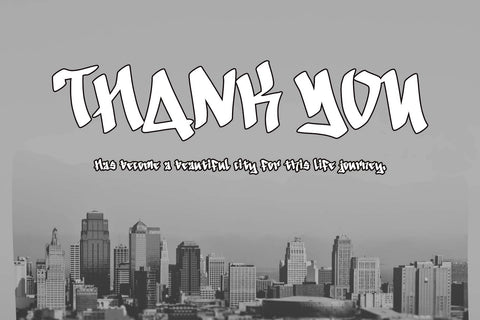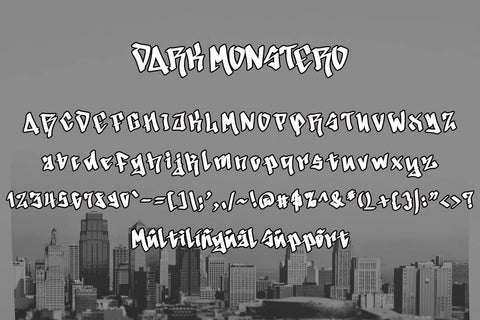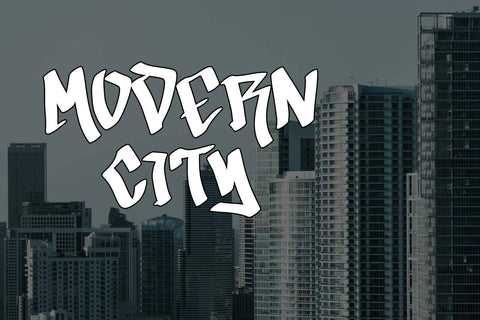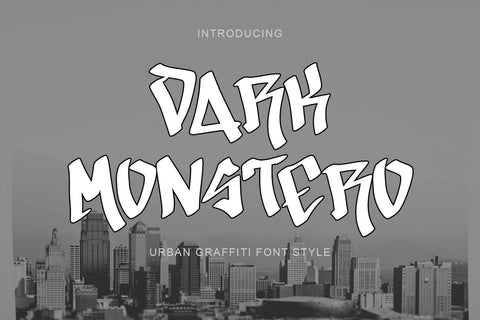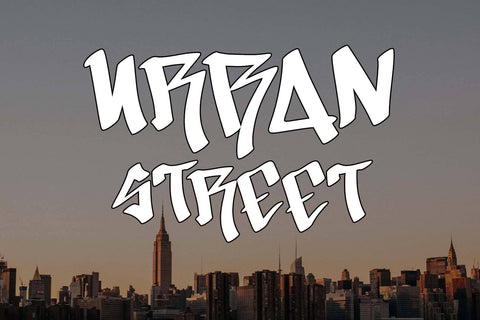
Dark Monstero
"Dark Monstero" is a very elegant graffiti font. This font is equipped with uppercase, lowercase, numerals, punctuation, and multilingual support. Very suitable for business branding, stickers, banners, posters, logos, tattoos, invitations, SVG, KDP, ProCreate, and others.